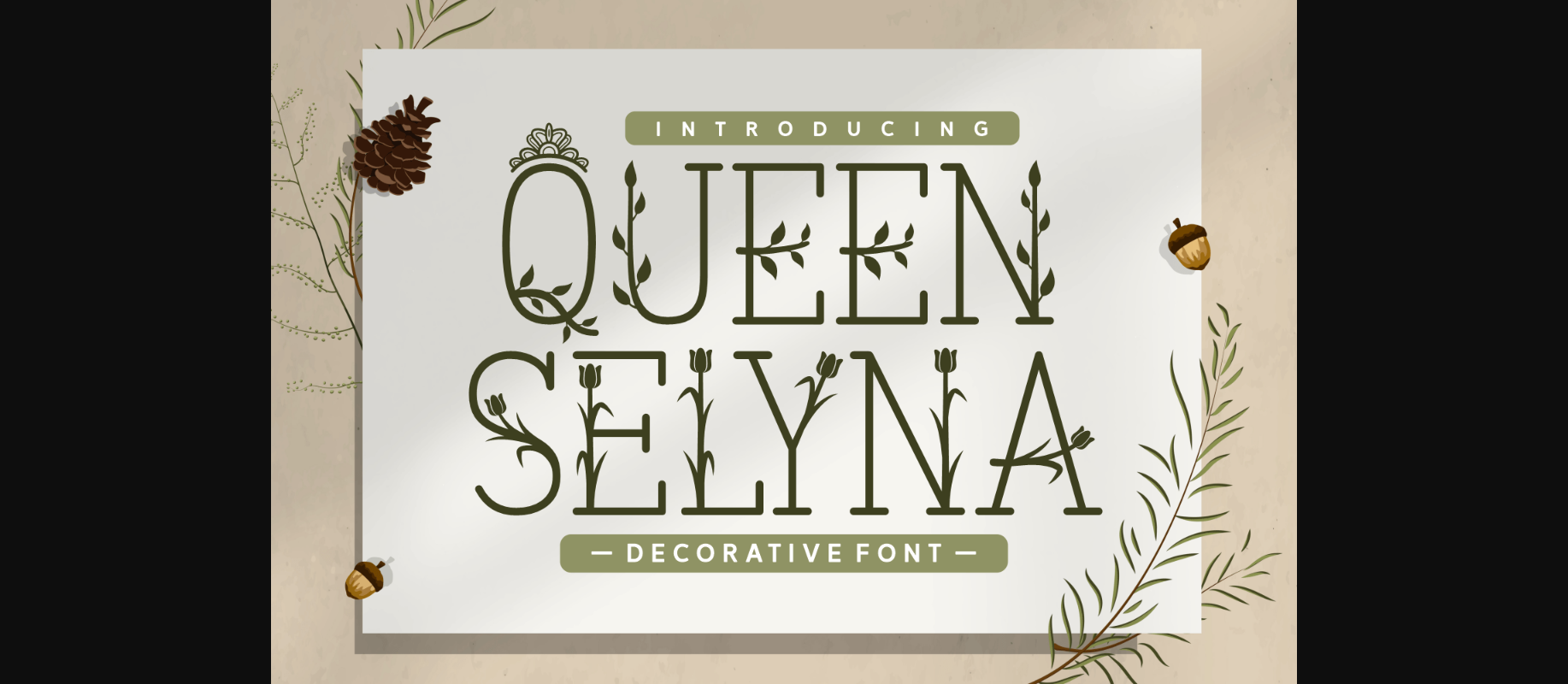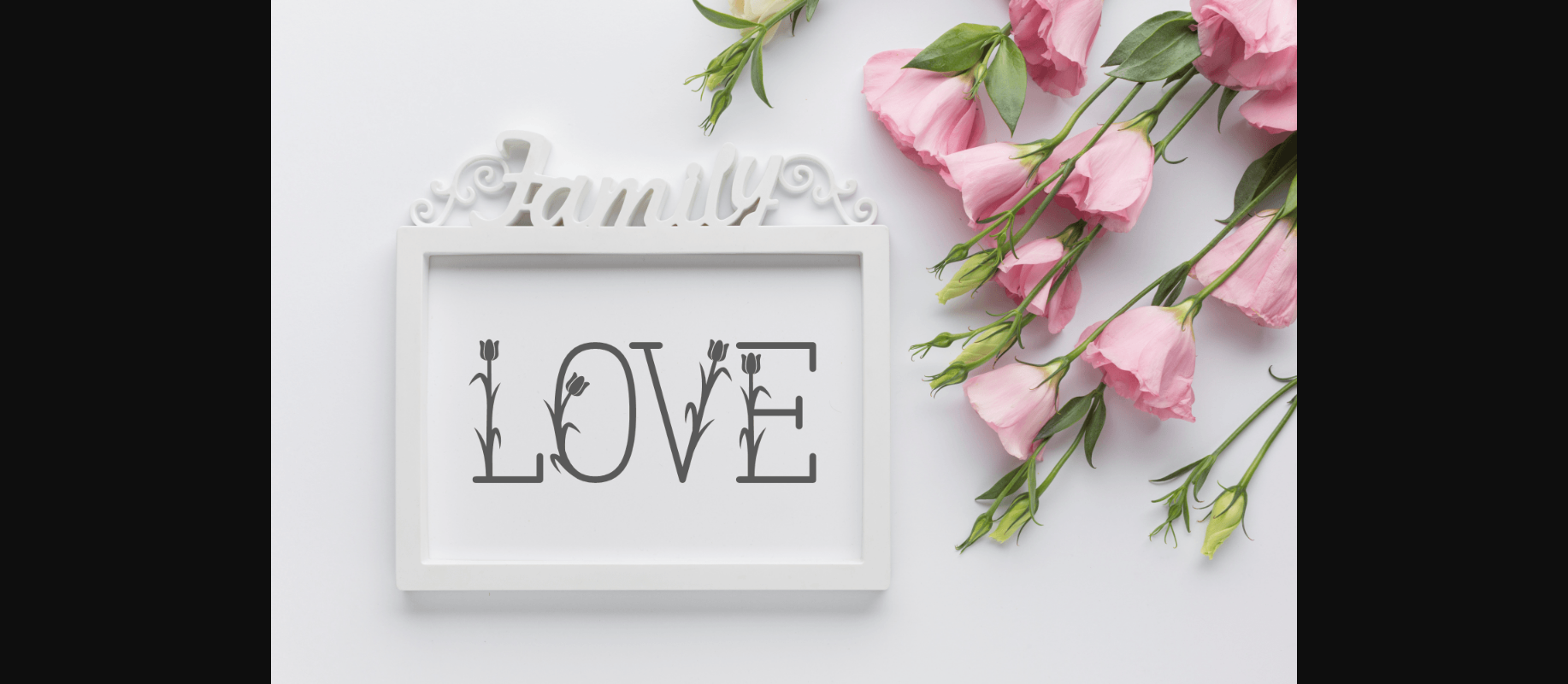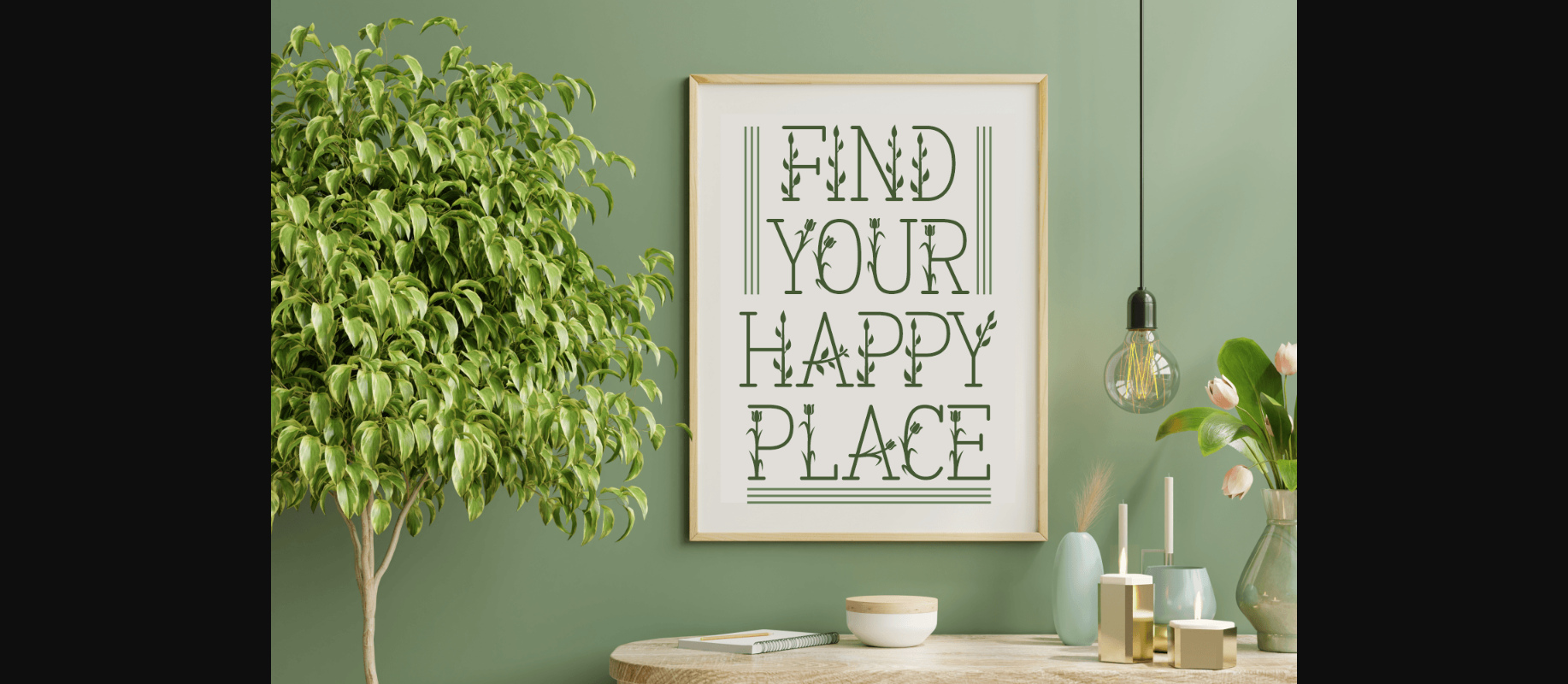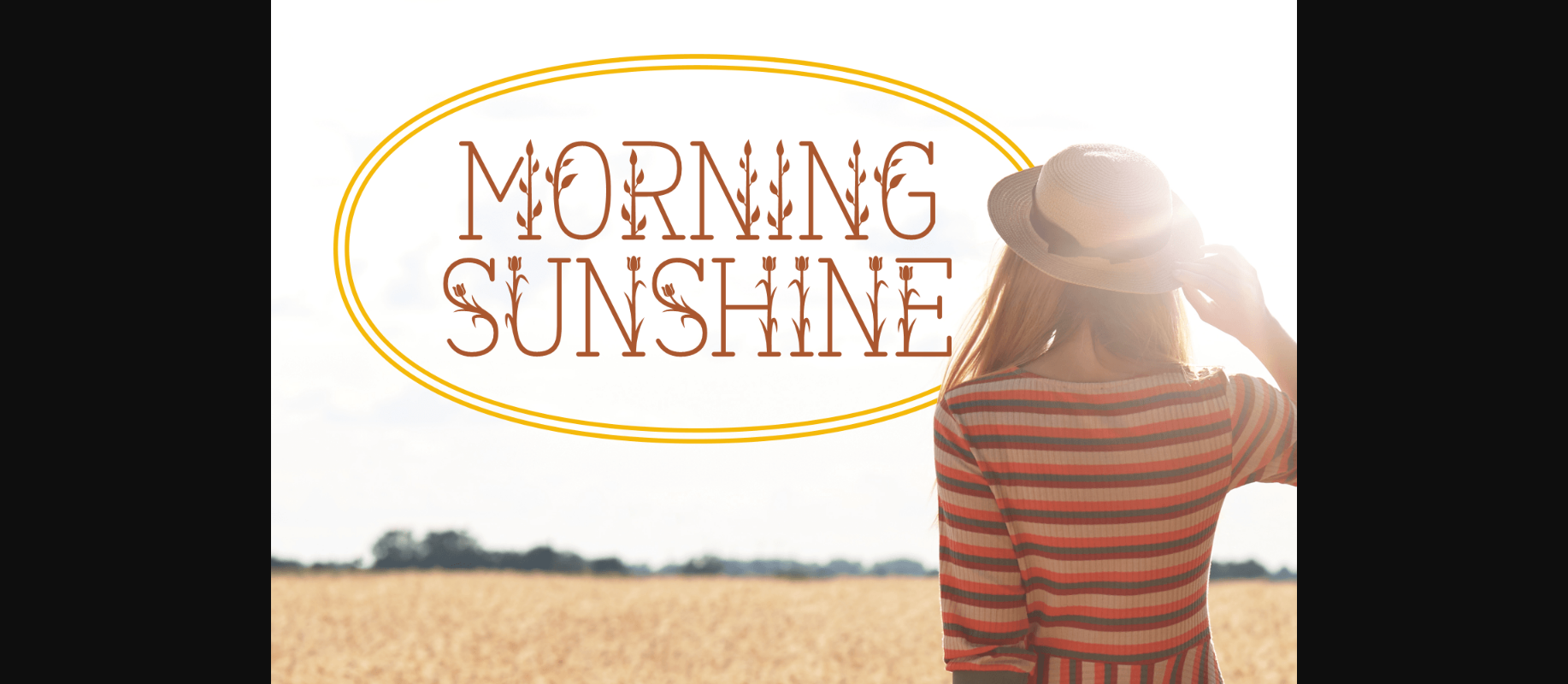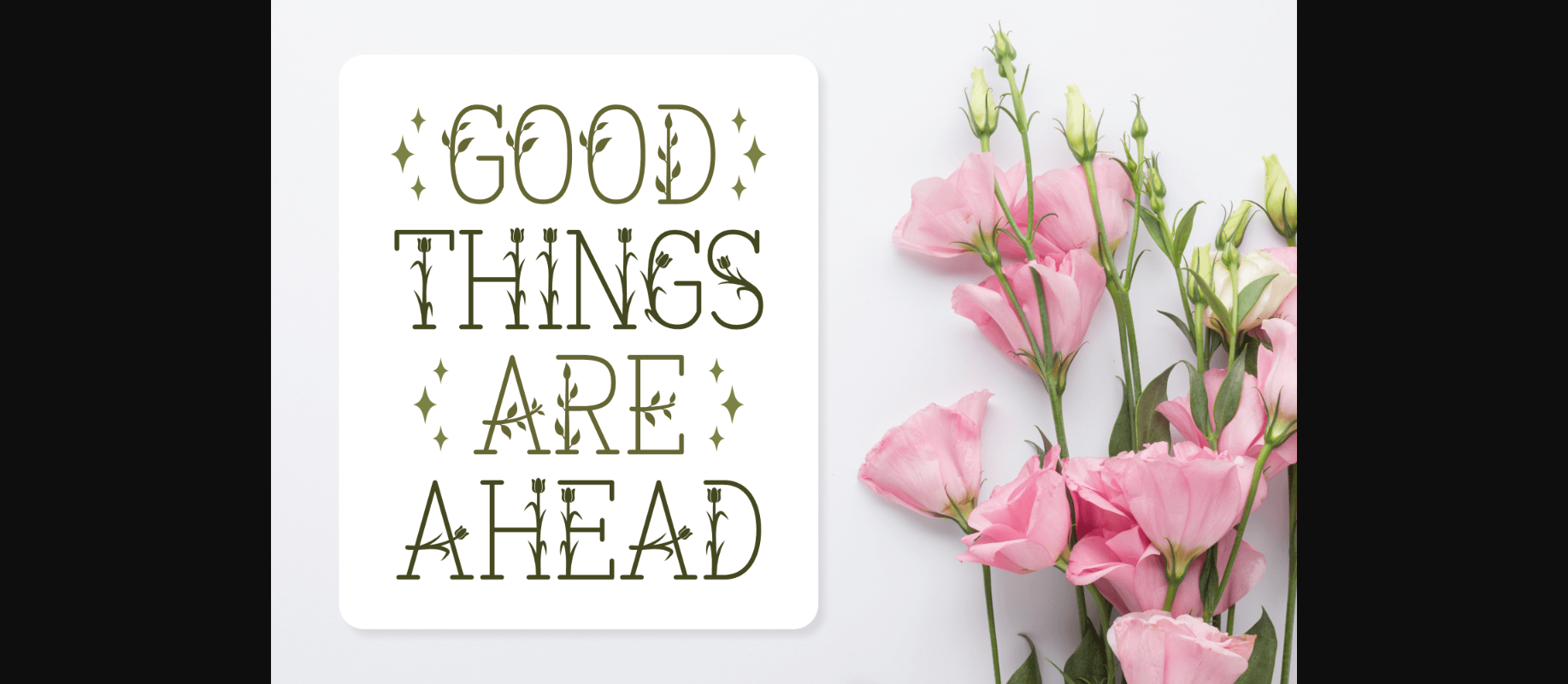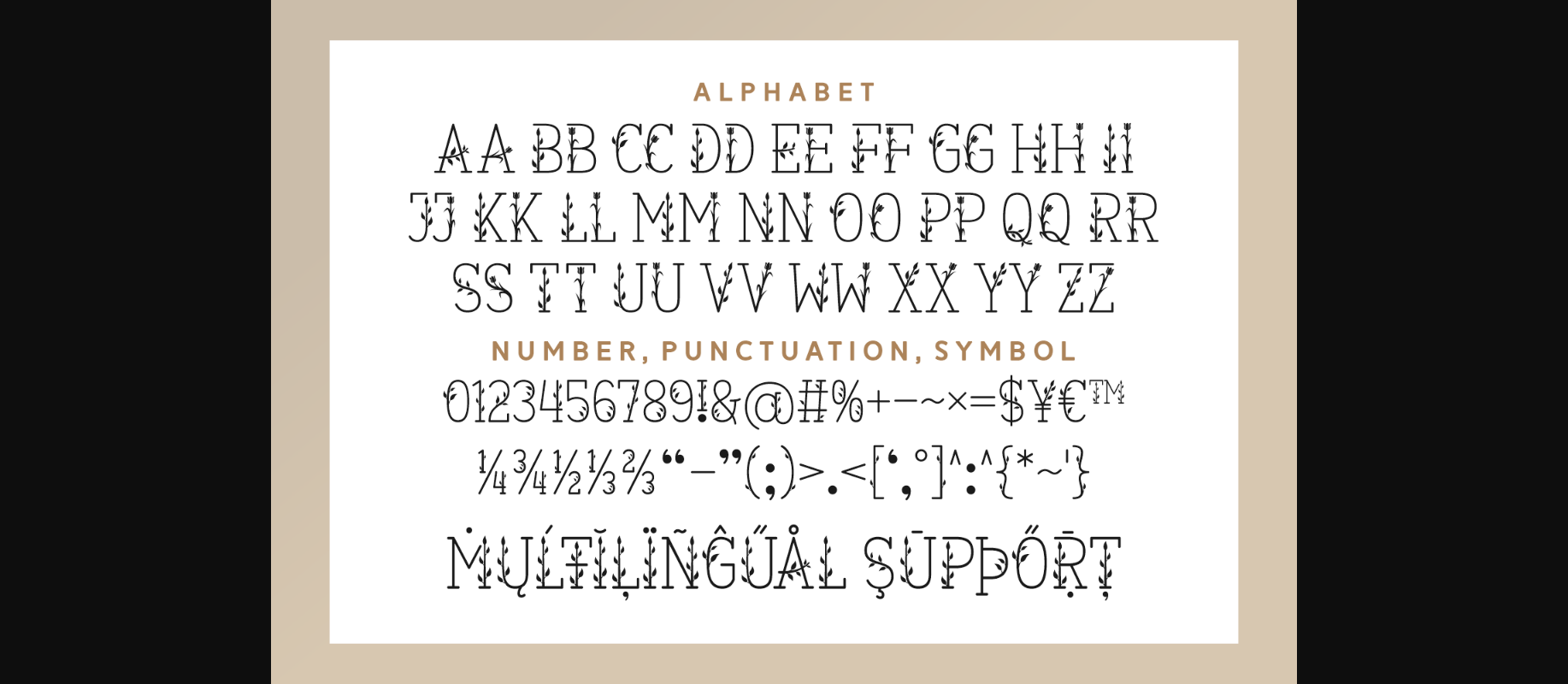
HomeDecorative FontsQueen Selyna Font Decorative Fonts Queen Selyna Font FacebookXPinterestWhatsApp 1 of 8 ... Queen Selyna Font Poster 2... Queen Selyna Font Poster 3... Queen Selyna Font Poster 4... Queen Selyna Font Poster 5... Queen Selyna Font Poster 6... Queen Selyna Font Poster 7... Queen Selyna Font Poster 8... About Queen Selyna Font Queen Selyna is a fancy and fresh decorative font with an incredibly unique look! Add this superb floral typeface to products with a romantic and feminine style, and you’ll love the outcome! DOWNLOAD NOW People also explored Kids School Font Edo SZ Hello Sunshine Font Gunong Font Jamilla Font Sun Mothers Font Line of Thinking Font Vitamin Font Halloween Ciyubee Font 265 0 TagsQueen Selyna Font Previous articleDreaming Paris FontNext articleButterfly Font LEAVE A REPLY Cancel reply Comment: Please enter your comment! Name:* Please enter your name here Email:* You have entered an incorrect email address! Please enter your email address here Website: Save my name, email, and website in this browser for the next time I comment. Personal Use Free Scoothlane Personal Use Free Read more about this font Reztop Personal Use Free Read more about this font Shawaki Personal Use Free Read more about this font Rellista Script Personal Use Free Read more about this font BLOG How to Install and Use Fonts on Windows, macOS, and Web Projects How to Install and Use Fonts on Windows, macOS, and Web Projects Fonts are a crucial part of design and branding. Whether you’re designing a... To increase your work productivity, choose the most readable fonts. The 10 Best Handwriting Fonts to Add Personality to Your Designs 5 Fonts That Will Dominate Design Trends in 2026